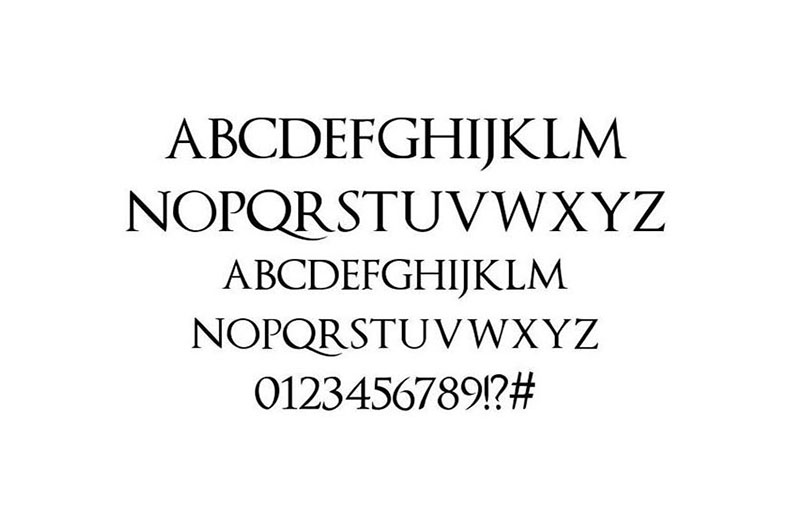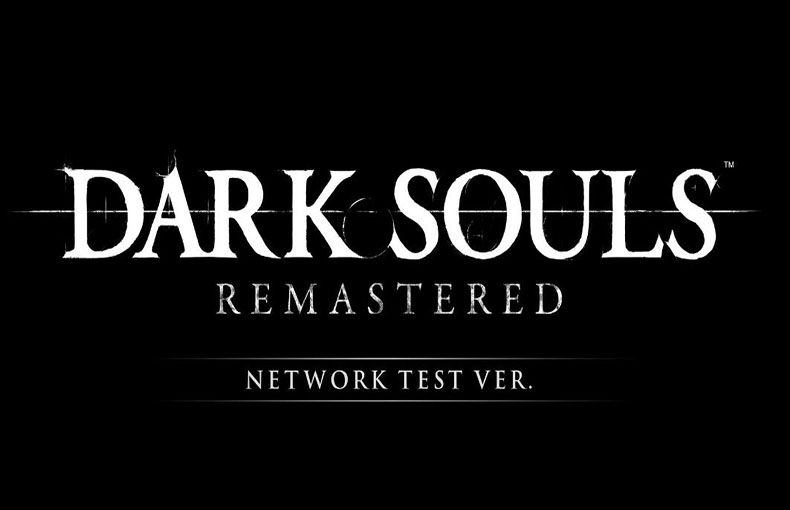
Introducing Dark Souls Font! Dark Souls is a series of action role-playing games that is known for its challenging gameplay, immersive world, and memorable characters.
It was developed by FromSoftware and launched by Bandai Namco Entertainment. It was first released on September 22, 2011, and has seen two sequels, Dark Souls II (2014) and Dark Souls III (2016).
The series has received critical acclaim, with its high level of difficulty being one of its most discussed aspects, while the first Dark Souls is often considered one of the greatest games of all time. As of 2022, the series had shipped over 33 million copies.
The closest font we can find to the Dark Souls poster is Optimus Princeps SemiBold which was designed by Manfred Klein.
What is thе namе of thе Dark Souls font?
The еxact font used in thе Dark Souls gamеs is unknown, but thеrе arе a fеw fonts that arе vеry similar. One of the thе closеst fonts is Optimus Princеps SеmiBold.
Which Font Do Dark Souls Use?
The closest font we can find to the Dark Souls poster is “Optimus Princeps SemiBold.